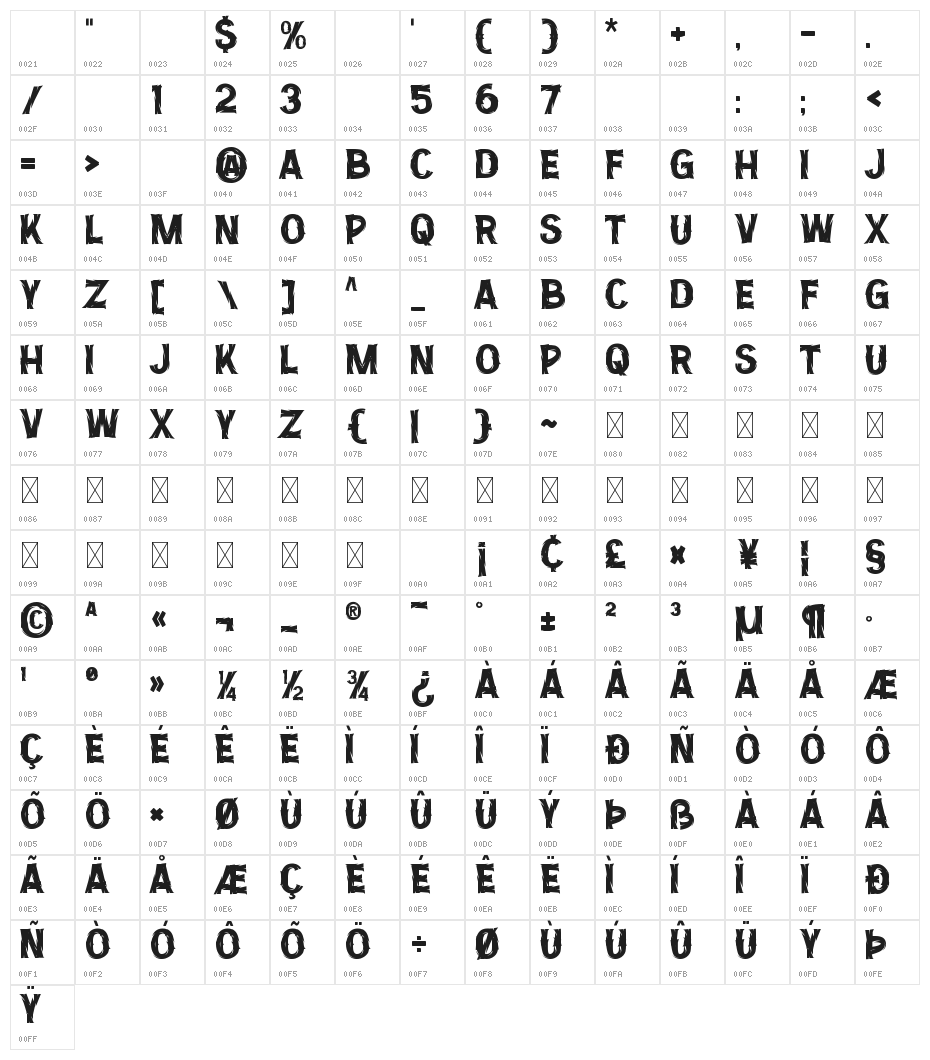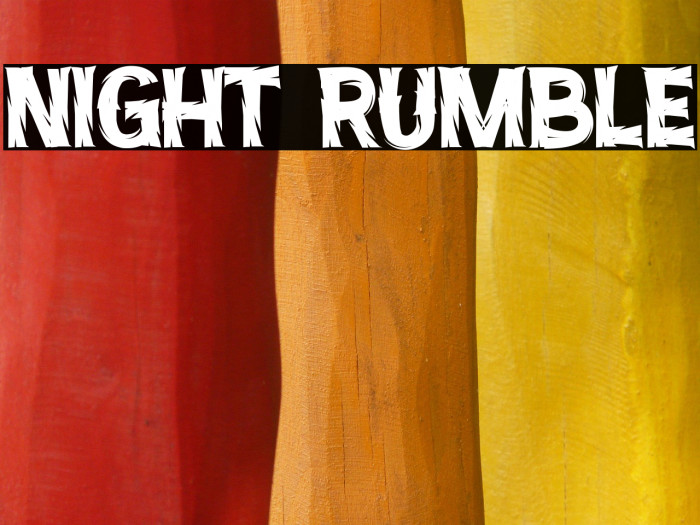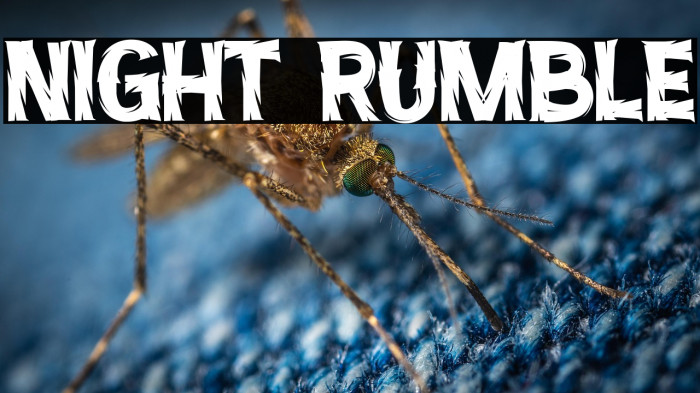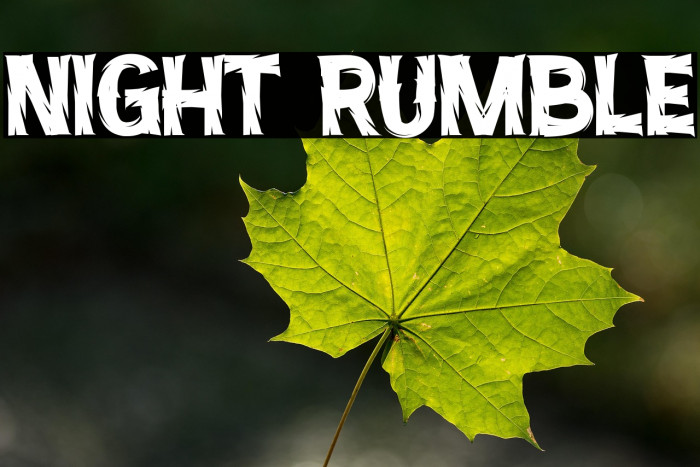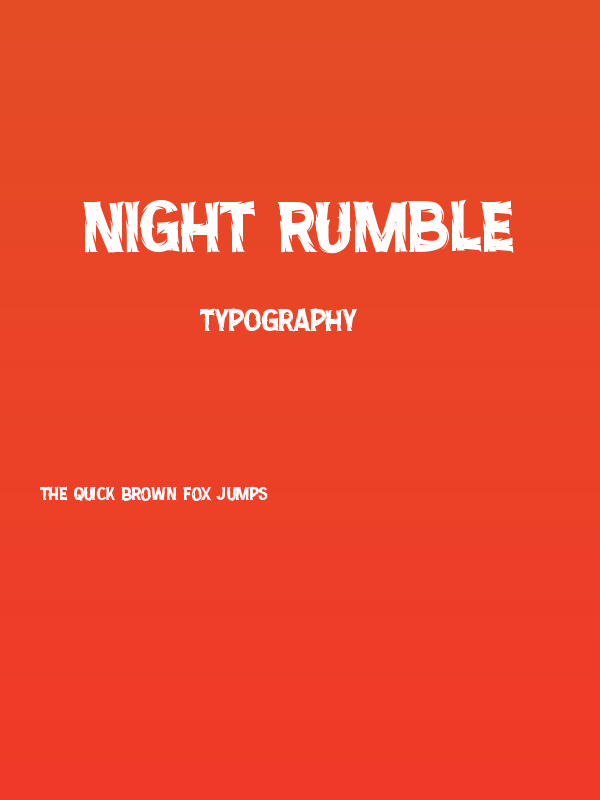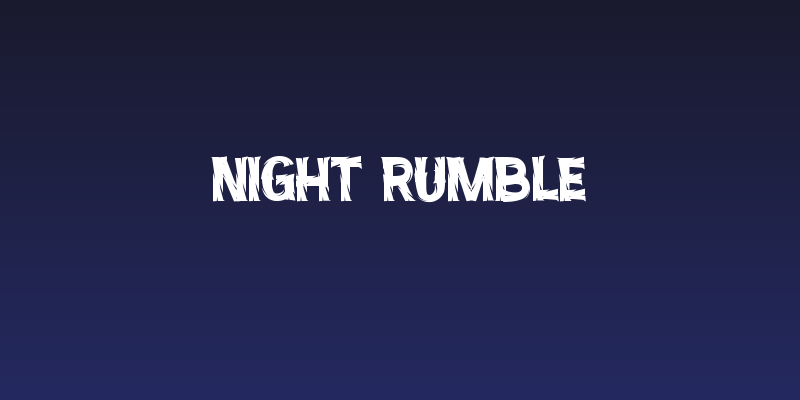
Night Rumble Font
| 整体风格 | Modern, Edgy |
| 推荐项目 | Ideal for music album covers, event posters, extreme sports branding, or any project needing a bold, energetic typeface. |